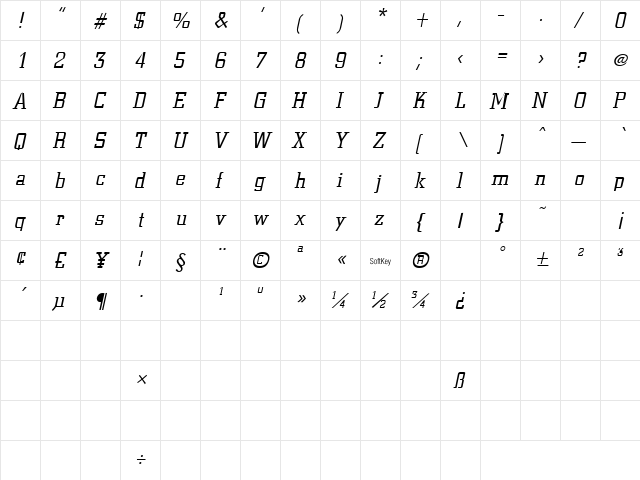
Civic Italic
Design Context for Civic Typeface
Civic takes a measured approach to typography — its balanced proportions and neutral character make it a reliable workhorse for both digital and print work. The slanted form adds forward momentum and visual energy.
Pro Tip: Use Civic for emphasis, pull quotes, and subheadings where its slanted energy can add rhythm to the layout.